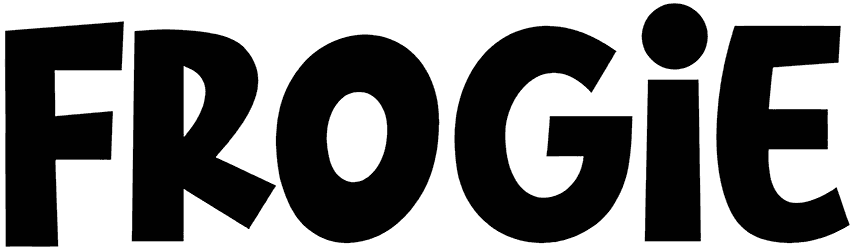
Frogie Font
The main mission of a playful font like what you have here is to engage many observers and convey to them a cheerful feeling. Frogie font is a bold and funny letterform that is going to give a cute face to your words. Even though this cartoon font doesn’t offer lowercase letters, test it for your t-shirt design or the like and enjoy the outcome.